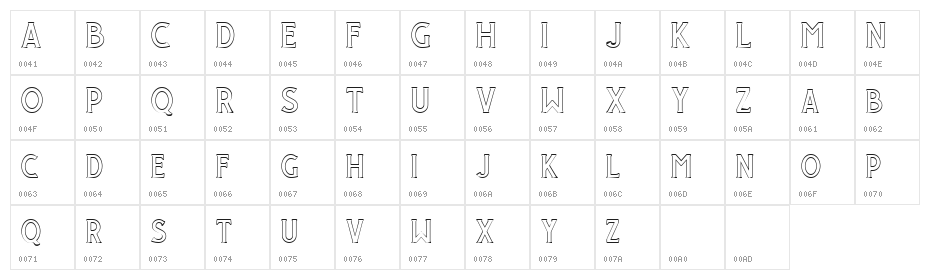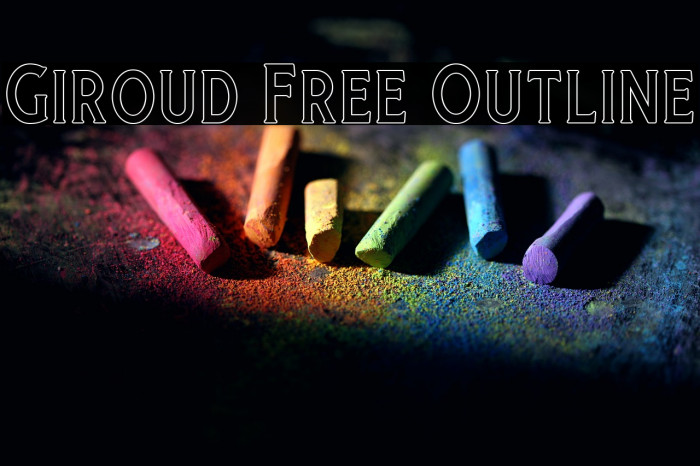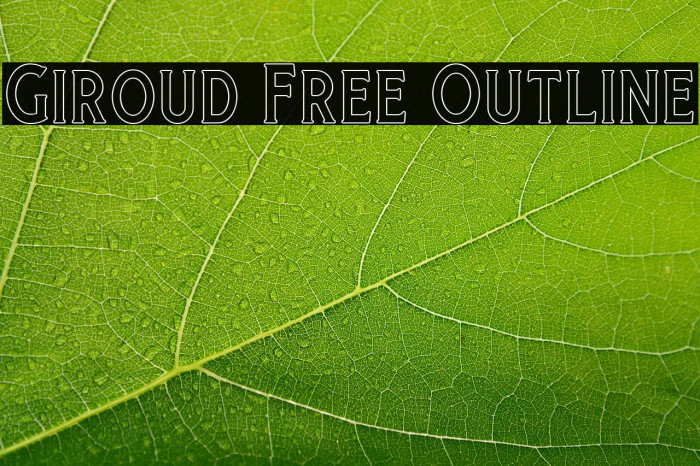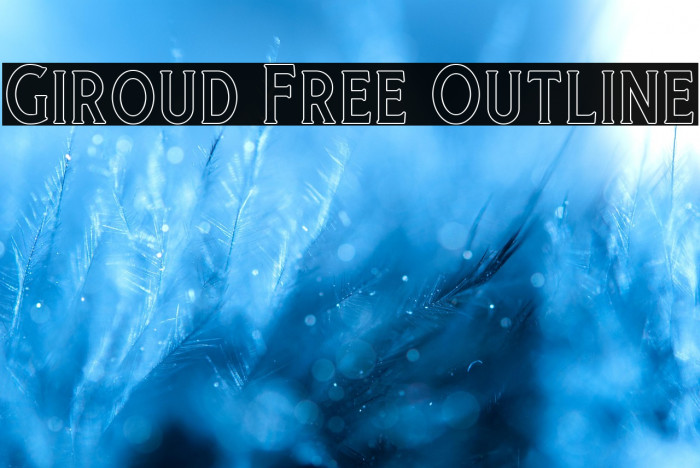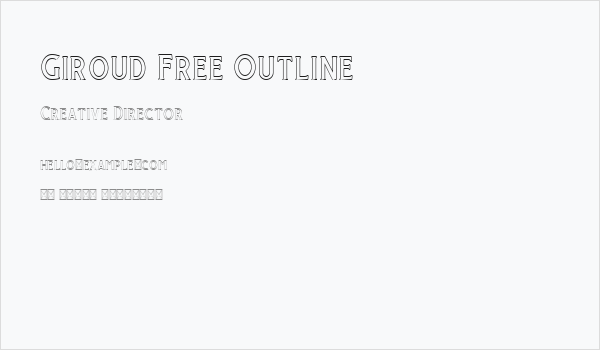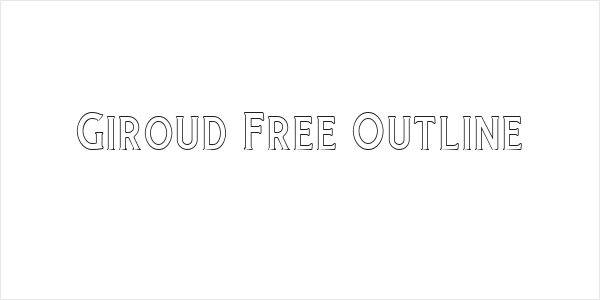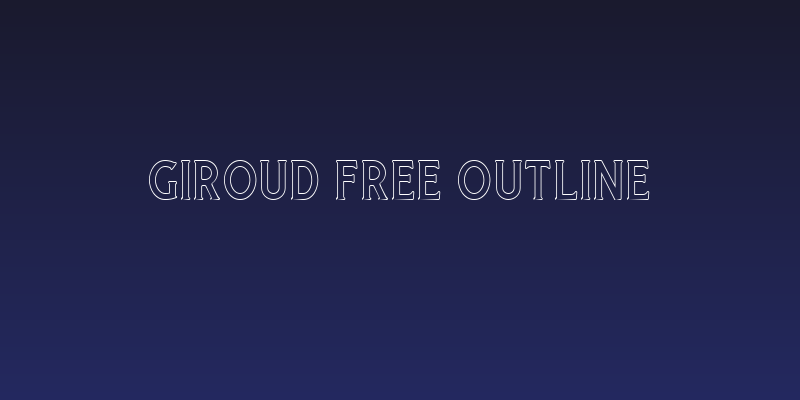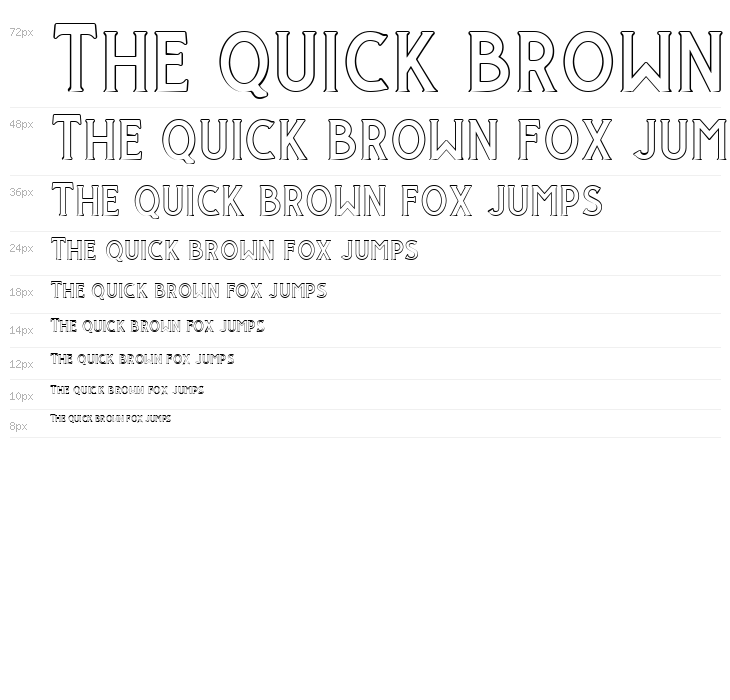
Giroud Free Outline Font
Giroud Free Outline Description
This font features a clean and modern outline style, characterized by its geometric and structured letterforms. The uppercase letters are uniform in height and width, creating a balanced and harmonious appearance. The lines are consistent in thickness, providing a clear and legible look. The absence of serifs gives it a contemporary feel, while the outline design adds a touch of elegance and sophistication. This font is versatile and can be used in various design projects where a modern and stylish aesthetic is desired.
| Proposed Projects | Ideal for branding, headlines, posters, and digital media where a modern and stylish look is needed. |